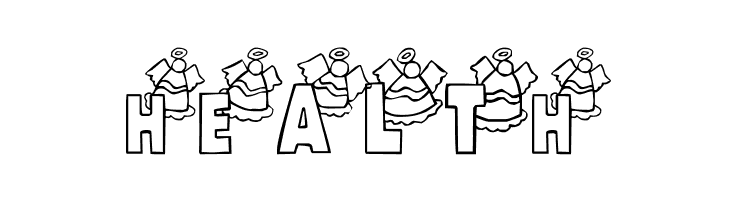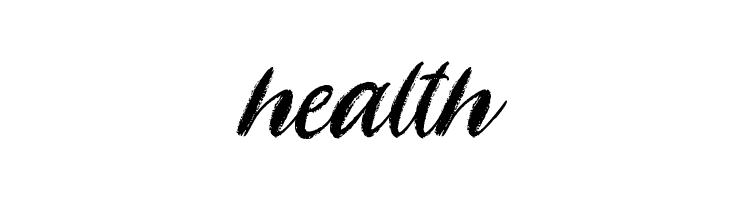
Angelic War Font
Font by Andrew Hart - dirt2.com
An ornate serif font with decorative flourishes and a distressed texture.
Ruluko Font
A modern sans-serif font with a clean and slightly rounded design.
Angelica Font
Font by Peter Stanton
A whimsical, hand-drawn font with curly, ornate details.
Esteban Font
A classic serif font with strong, pronounced serifs and a timeless aesthetic.
Angelic Child Font
A bold, geometric font with a strong and modern appearance.
Angelica-Regular Font
A bold, expressive script font with a hand-drawn, dynamic style.
Angelic Serif Font
Font by Andrew Hart - dirt2.com
An elegant serif font with decorative swirls and flourishes.
AngelicWar Font
Font by Andrew Hart - dirt2.com
A decorative font with intricate swirls and a distressed texture.
A decorative, futuristic font with geometric and abstract character designs.
AngelicSerif Font
Font by Andrew Hart - dirt2.com
An elegant and decorative serif font with intricate curves and flourishes.
AngelicBonquesFree-Sans Font
A sleek, modern sans-serif font with high contrast and elegant design.
AngelicPeace Font
Font by Andrew Hart - dirt2.com
An ornate and decorative font with intricate swirls and flourishes.
Angelica Maya Font
Font by Wahyu Studio
A playful, handwritten script font with dynamic, flowing characters.
Angelic Bonques Free Sans Font
A modern, elegant font with geometric shapes and consistent stroke width.
AngelicaCP Font
A bold, geometric font with a modern and artistic style.
Caitlin Angelica Font
A graceful and flowing script font with elegant, fluid letterforms.
Caitlin Angelica Italic Font
A graceful script font with flowing, connected letters and elegant flourishes.
Angelic Bonques Free Script Font
An elegant, cursive handwritten font with smooth, flowing strokes.
Marya Angelic Font